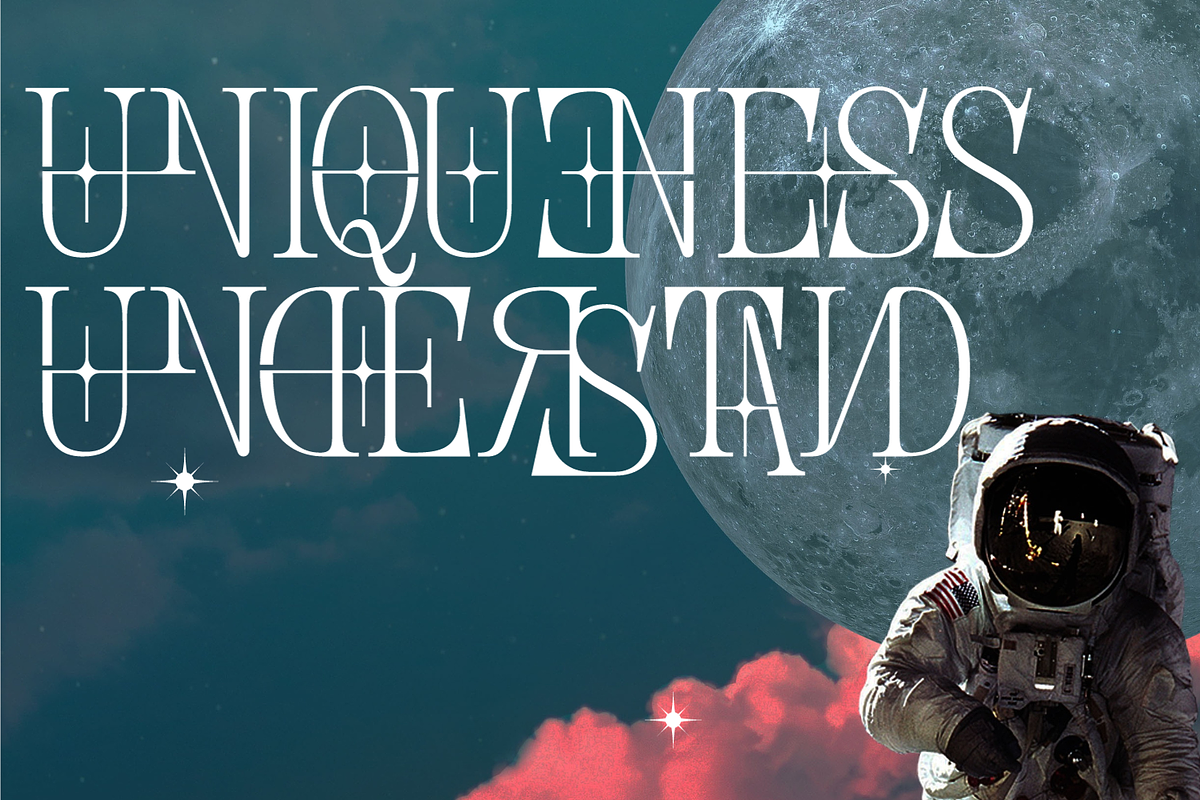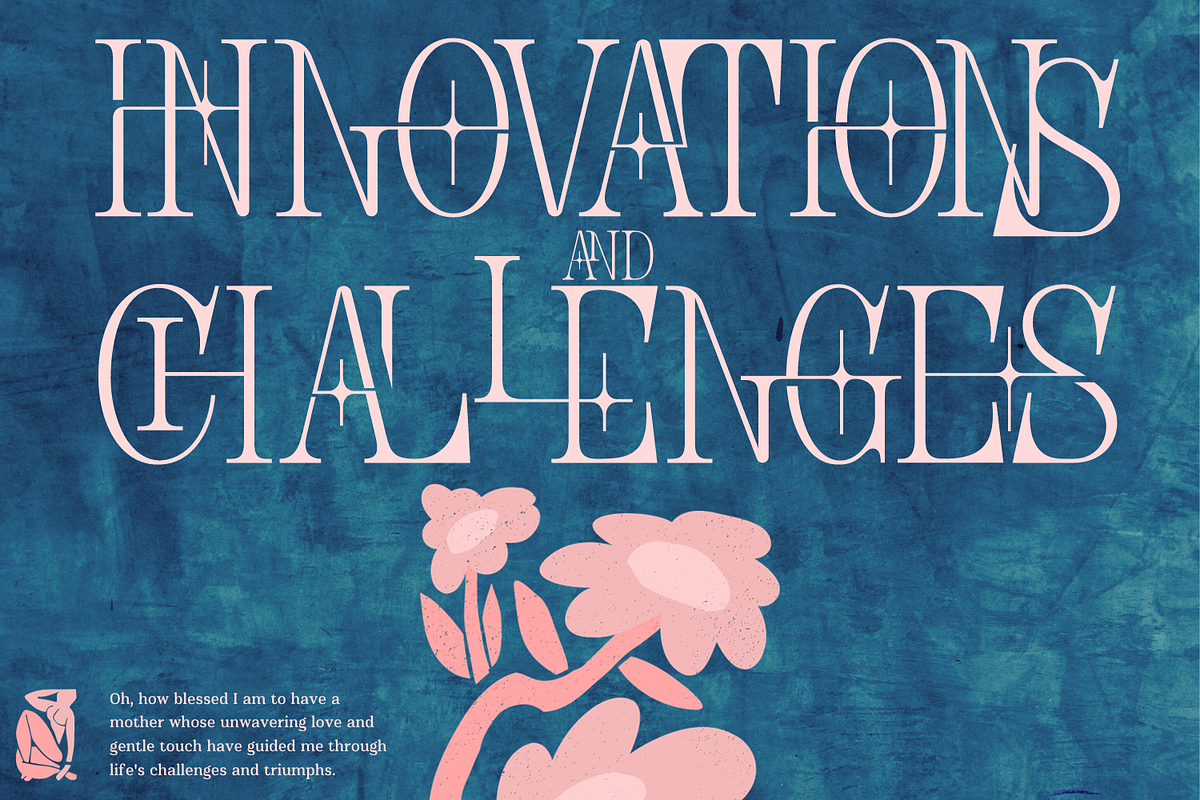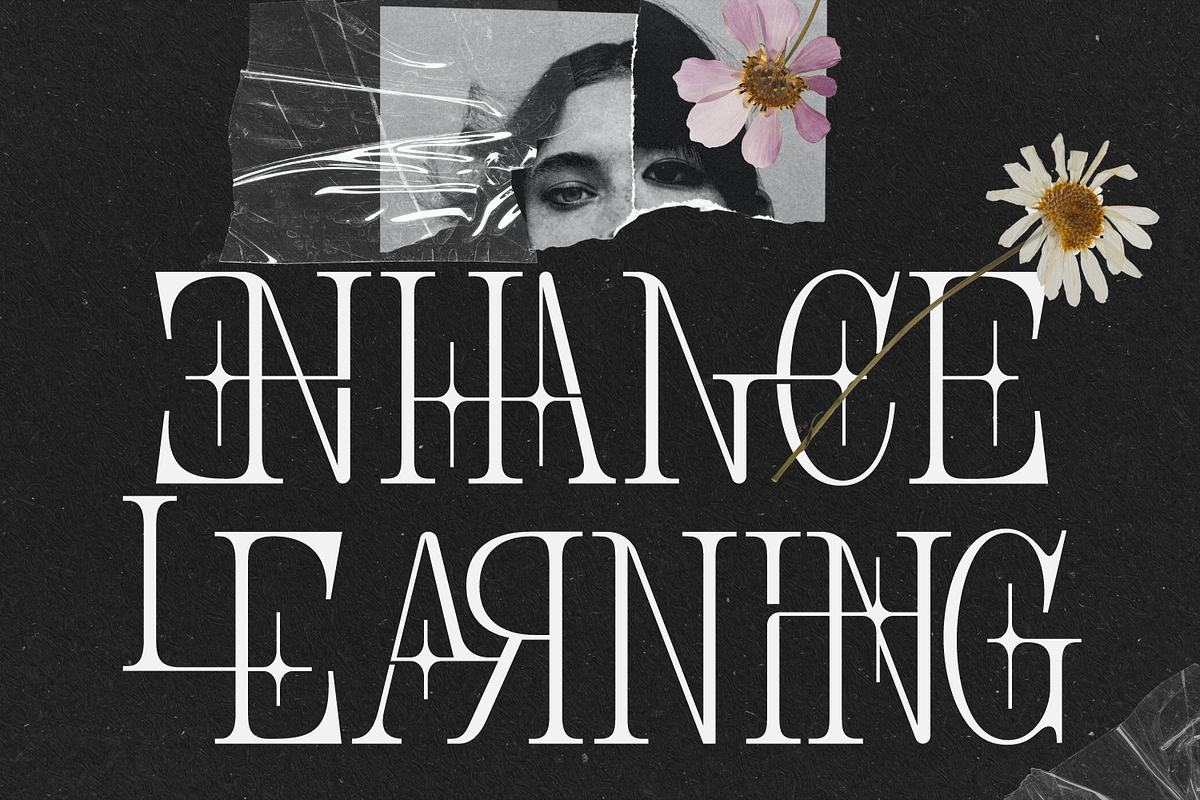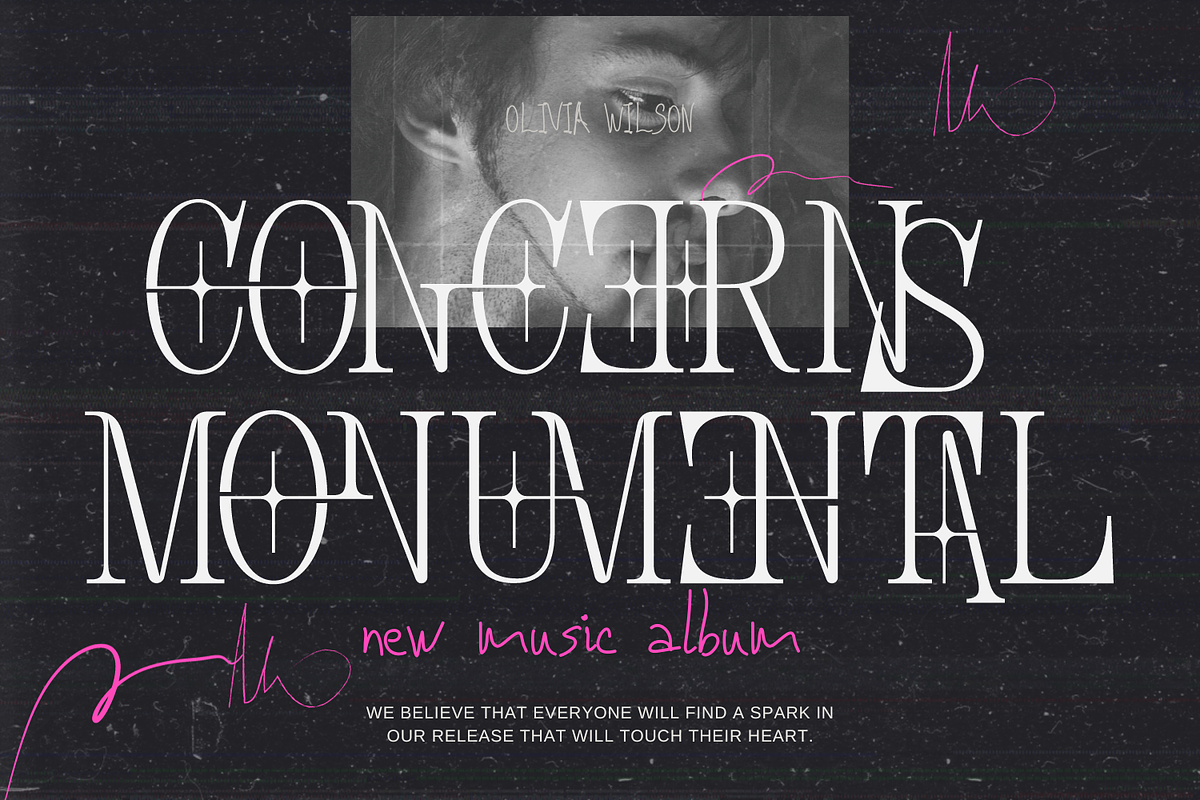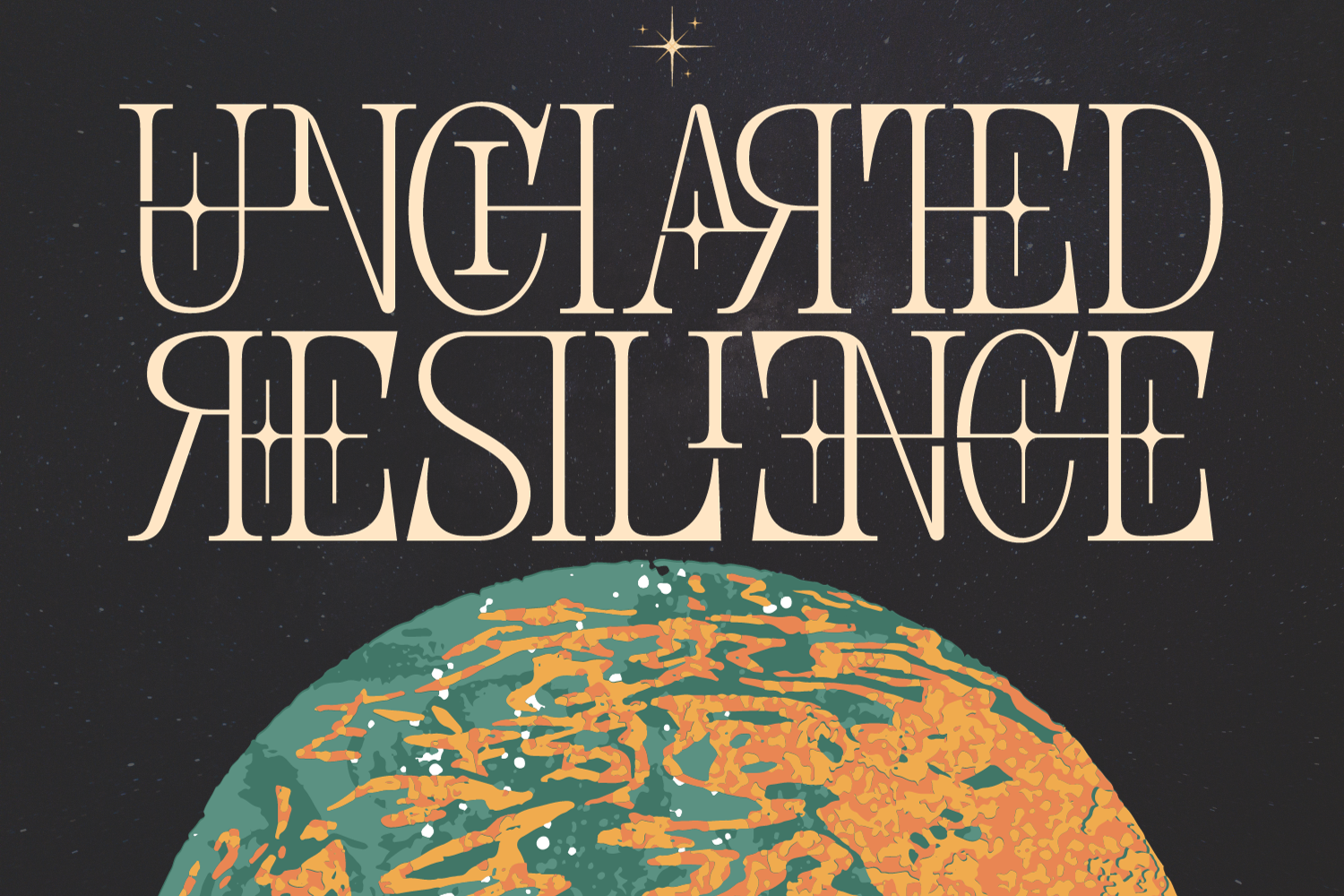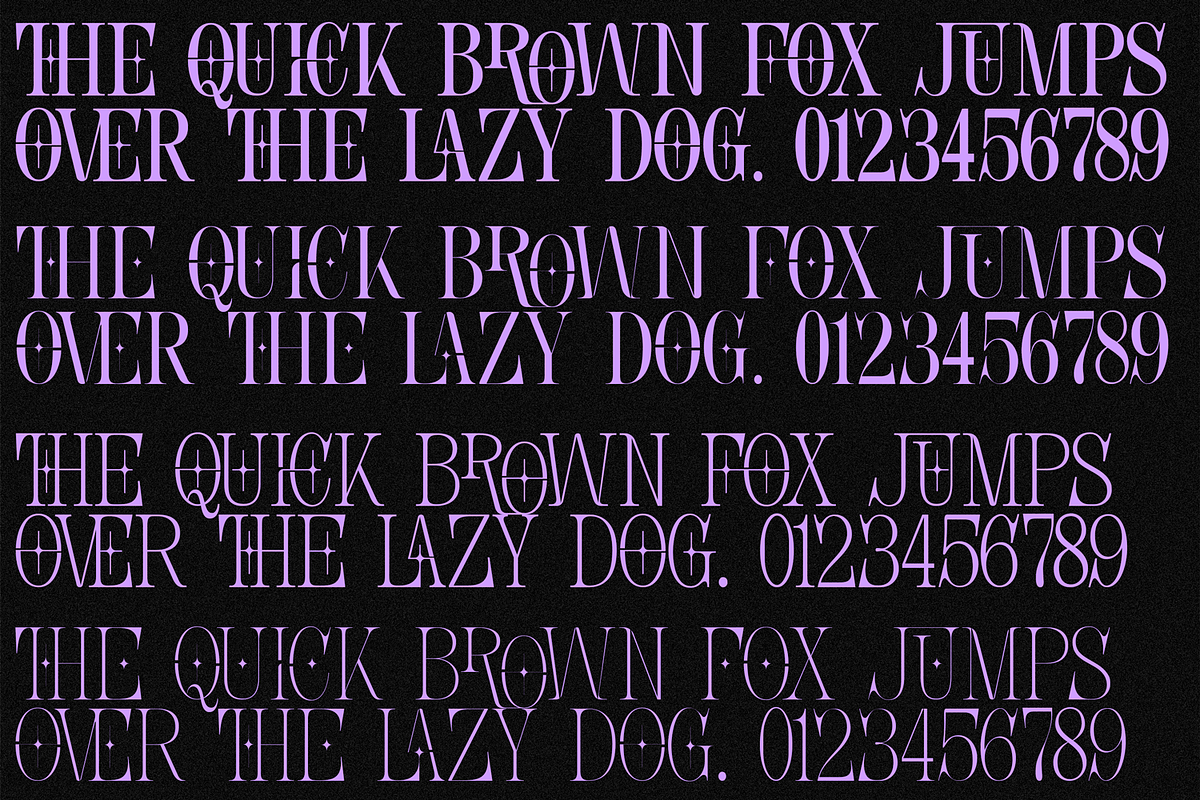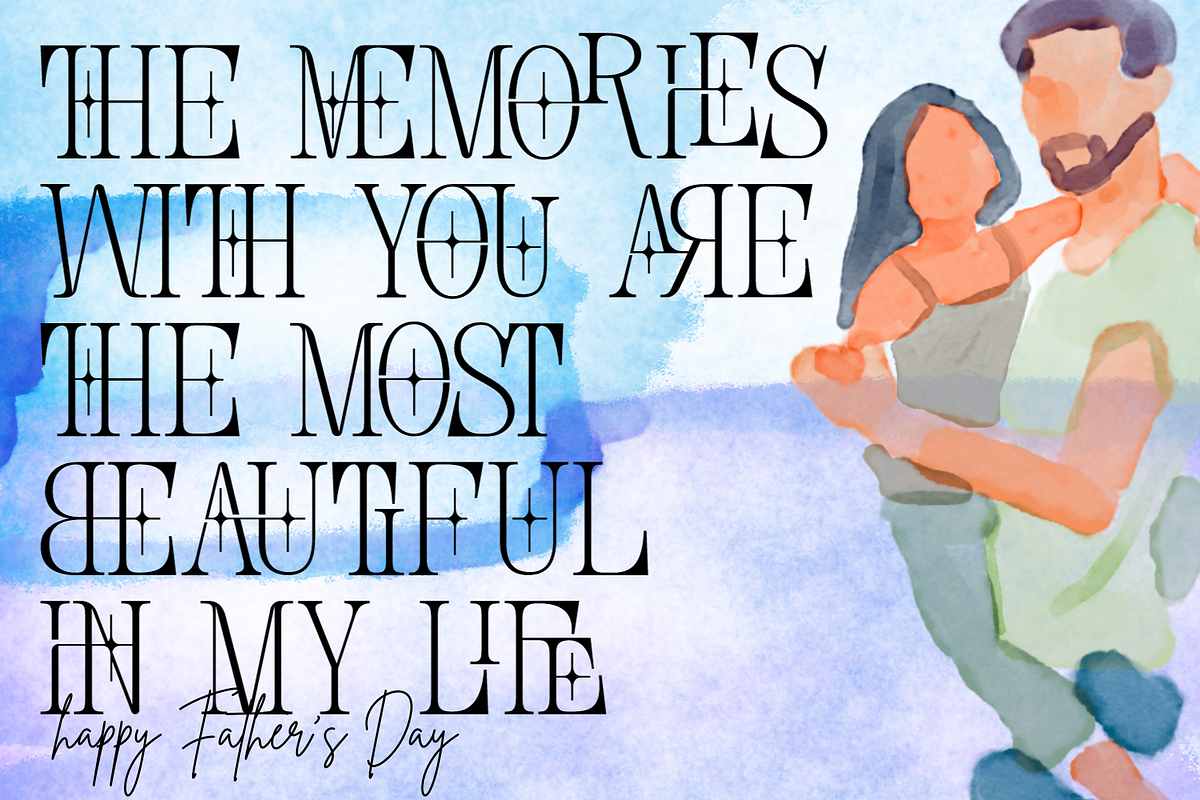
Uncharted Resilience Font
Uncharted Resilience Font is a sophisticated ligature serif from us. The ligatures makes this typeface unique and stands out rather than the regular serif font. It's a beautiful and inspiring set of modern typography glyphs based on a minimal and simplistic approach to elegance. The inspiration came from the fashion magazines. Its thick-thin, serif strokes express the modernity of the fashion industry.
Uncharted Resilience was built with OpenType features and includes 100 ligatures, alternate, numbers, punctuation, and it also supports other languages.
AC AD AL AN AR AS AT AU AV BE CA CE CH CO CT DE DI EA EC ED EE EL EM EN EP ER ES ET FE FO FR GE HA HE HI HO IE IC IL IN IO IR IS IT JU KE LA LE LI LL LO LY MA ME MI NC ND NE NG NO NT NS OC OF OM ON OO OP OR OT OU OW PA PR RA RD RE RI RO RS RT SE SH SI SO SS ST TA TE TH TI TO TR TT UM UN UR VE WI WO
This font also included full set of:
- Special Ligatures